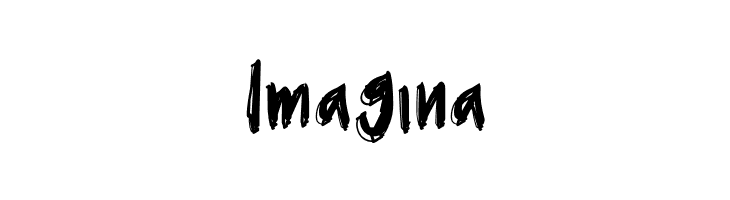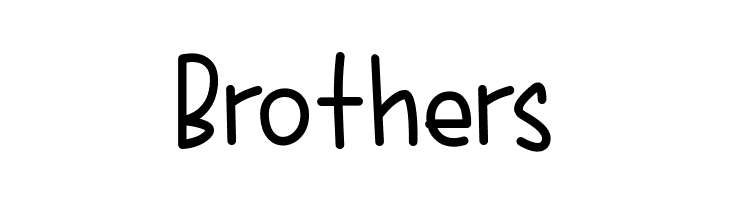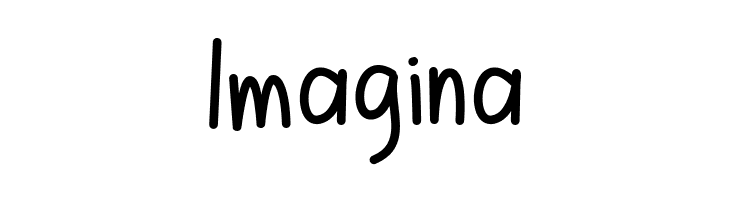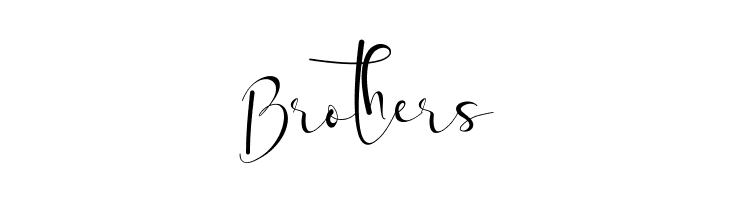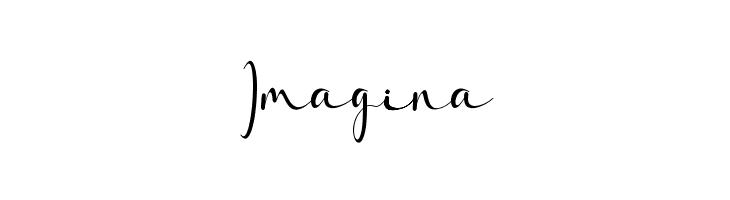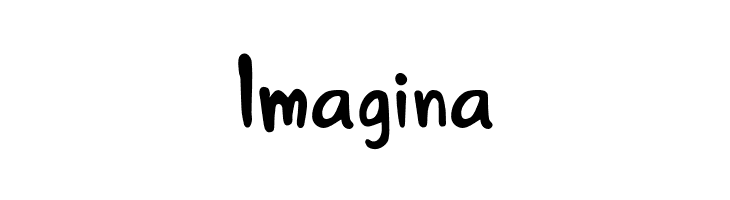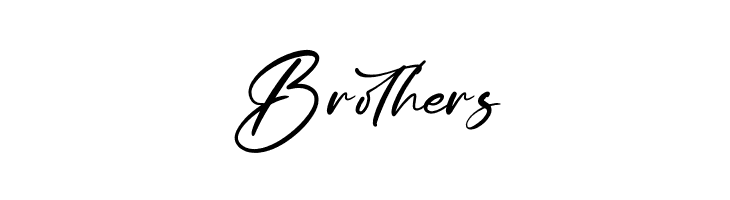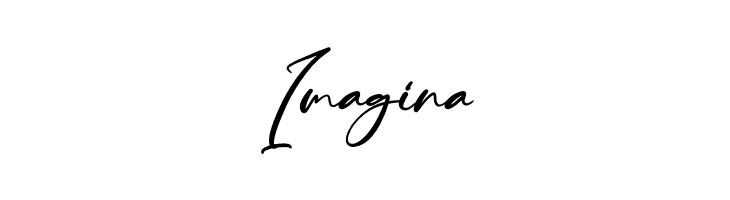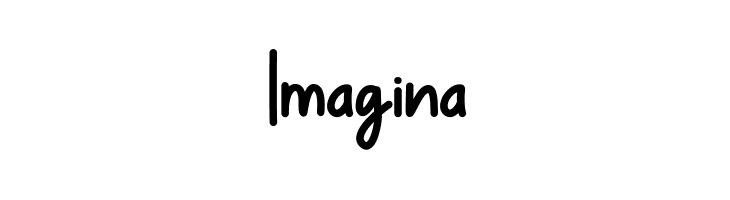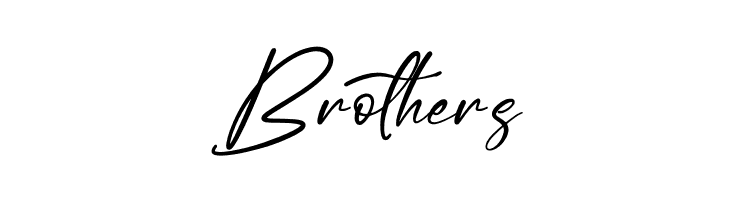
A playful, handwritten-style font with bold, consistent strokes and a casual vibe.
Elegant cursive script with a playful, handwritten style.
An elegant and flowing script font with graceful curves and fluid strokes.
A bold, expressive handwritten font with dynamic strokes and artistic flair.
Elegant cursive script font.
Elegant cursive font with a fluid, handwritten style.
A playful, handwritten font with bold, irregular strokes.
A playful, handwritten font with smooth, flowing lines and a casual vibe.
A playful, handwritten font with rounded, consistent strokes.
Handwritten cursive script font.
A playful, rounded font with smooth curves and consistent stroke width.
A playful, hand-drawn style font with rounded, irregular letterforms.
A bold, textured font with a hand-painted, brush-stroke style.
Dynamic handwritten script font.
A playful, casual handwritten font with smooth, rounded edges and consistent strokes.
A playful, handwritten font with flowing, artistic strokes.
A dynamic and elegant handwritten font with fluid, cursive strokes.
A playful, informal handwritten font with fluid strokes.
Handwritten cursive script font.
A dynamic and elegant script font with fluid, cursive letterforms.
A bold, handwritten font with a playful and casual style.
A playful, handwritten font with smooth, rounded edges and consistent stroke thickness.
A playful, handwritten font with rounded, consistent strokes and a casual vibe.
A dynamic and fluid script font with elegant, flowing letterforms.
Elegant handwritten script font.